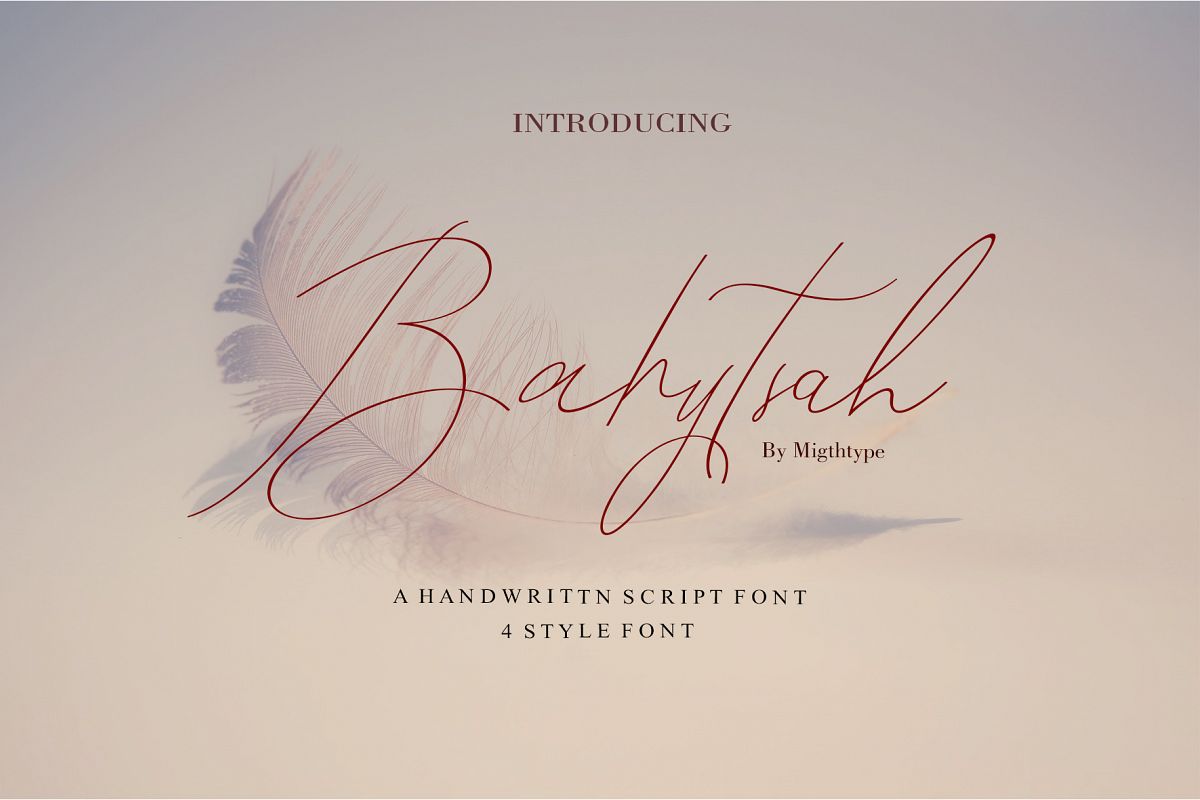
A NEW Bahytsah
Bahytsah Script is a modern calligraphy font with
the current handwriting style, this font is perfect for branding,
wedding invites, magazines, mugs, business cards, quotes, posters, and
more, you can try first if you want to buy this font.
Bahytsah  Script is equipped with 389 glyphs. and
by having many of these glyphs there will be able to choose the letters
according to your likes, lots of variations and options for each letter,
so you can customize on your design choices.